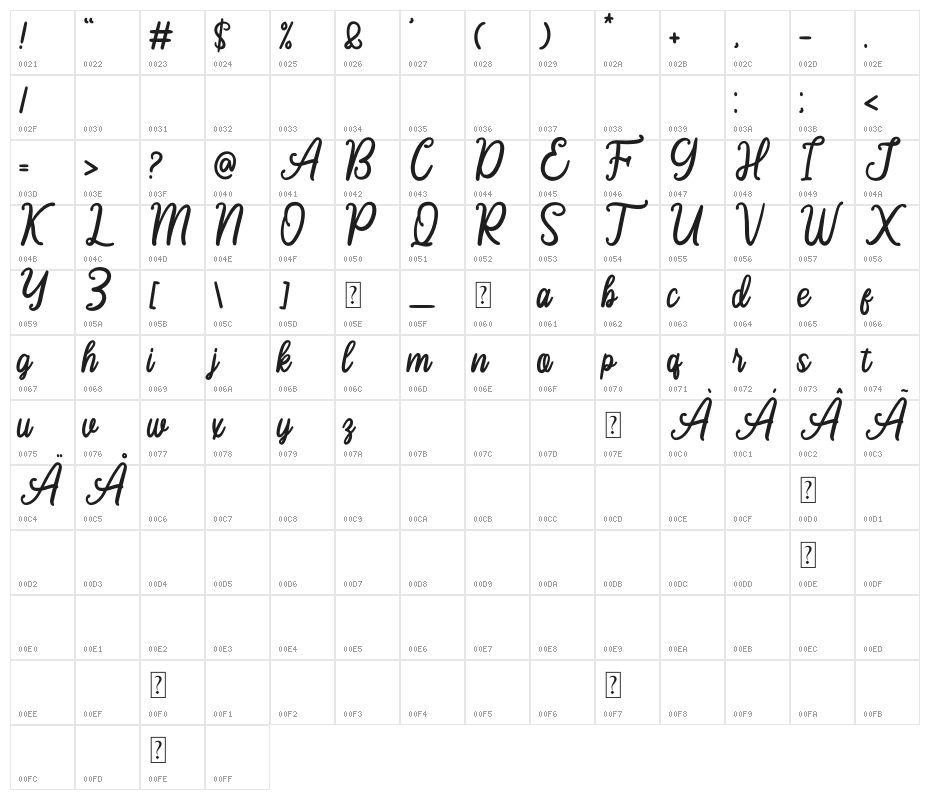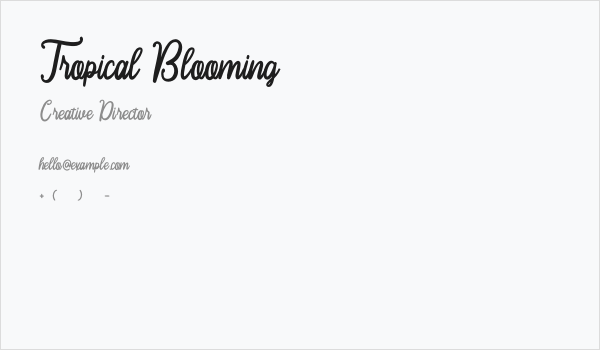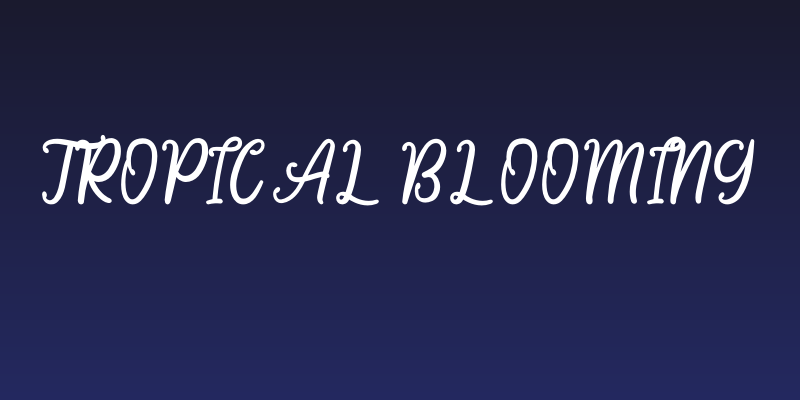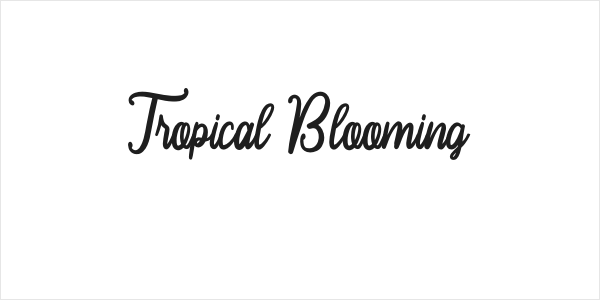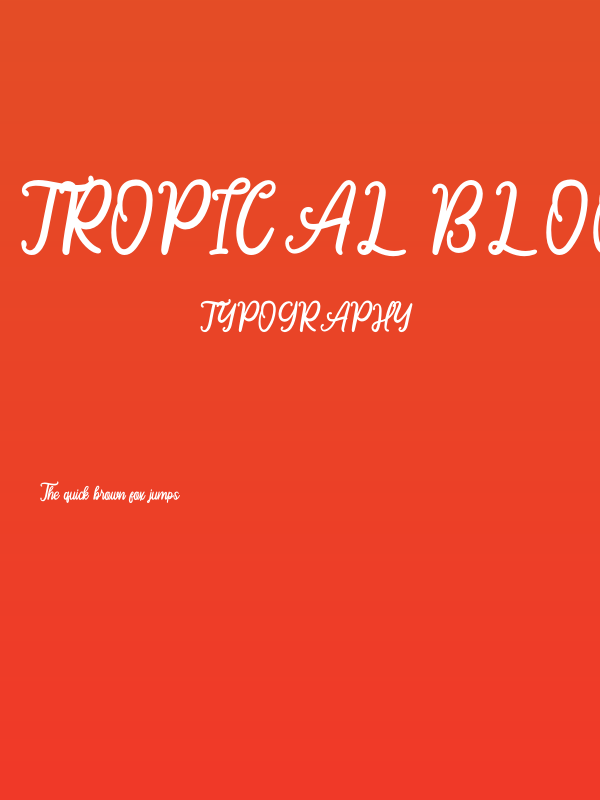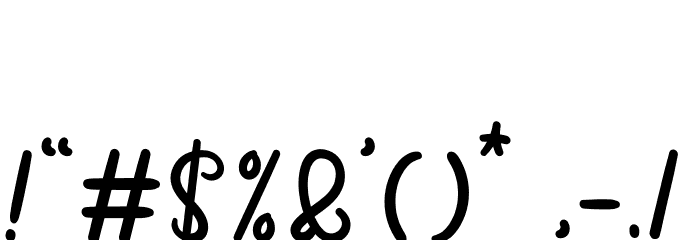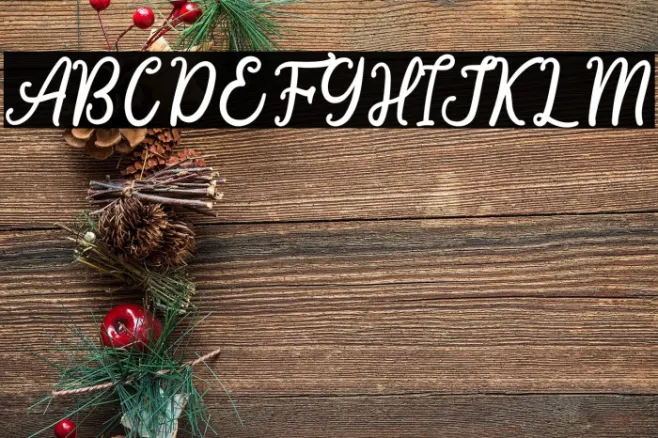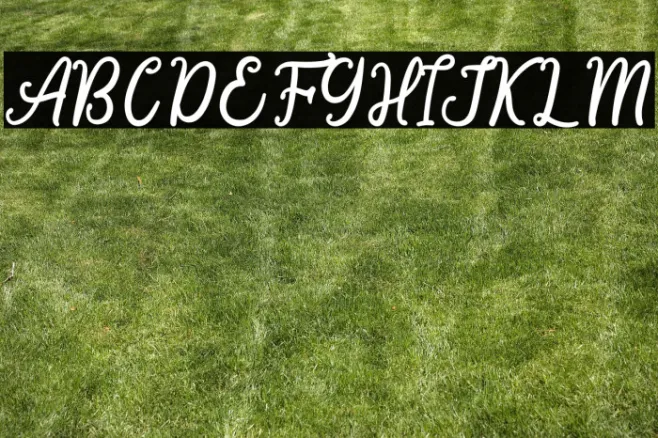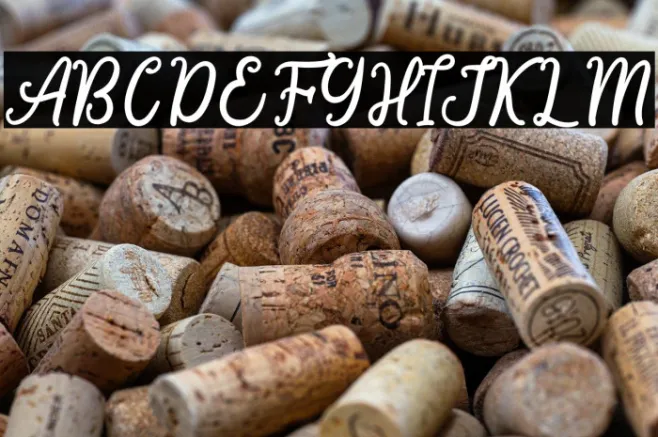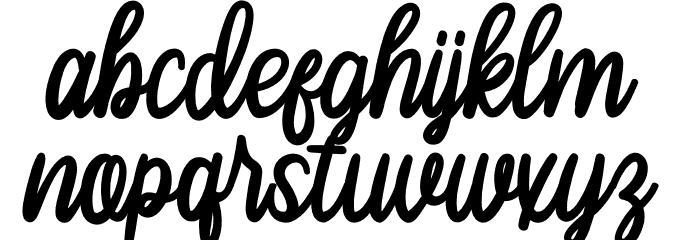
Tropical Blooming Font
Tropical Blooming Description
This font exudes a lively and energetic vibe with its flowing, cursive style. The letters are interconnected, creating a sense of movement and fluidity. The uppercase letters are slightly more ornate, while the lowercase letters maintain a consistent, smooth flow. The strokes are moderately thick, providing a bold appearance without compromising elegance. The special characters are designed to match the playful and dynamic nature of the alphabet, making this font suitable for creative and expressive projects.